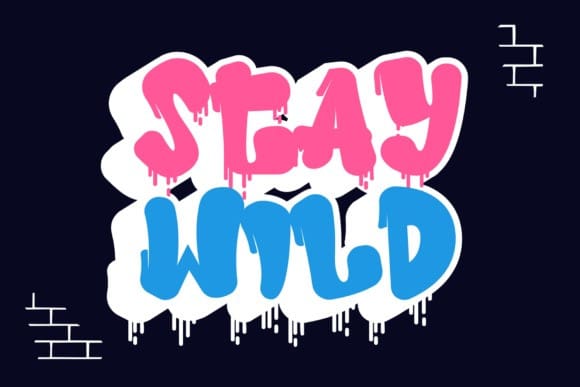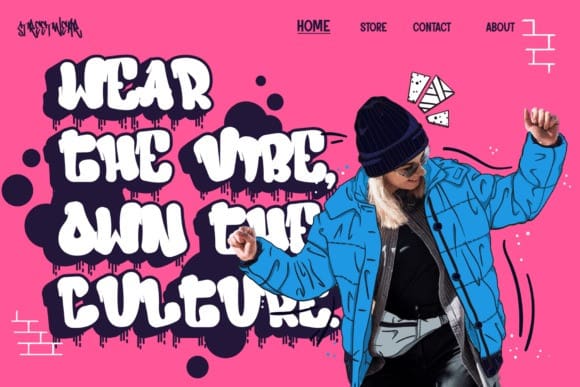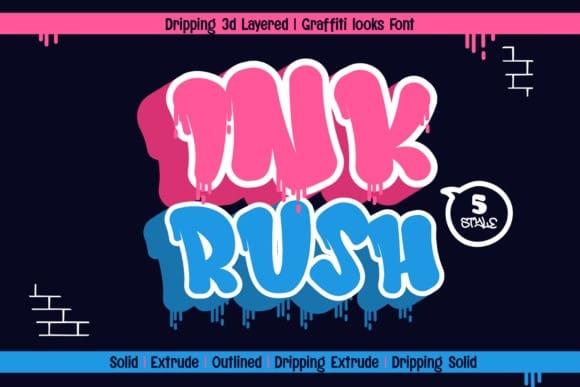
Ink Rush Font
Ink Rush Font is a bold and expressive dripping layered graffiti font crafted to bring an intense, street-inspired energy to any project. This font offers five distinct styles—solid, dripping solid, outlined, extruded, and dripping extruded—each providing unique looks for a variety of design needs. The solid styles offer clean, bold letterforms, while the dripping variations add an edgy, liquid effect that mimics fresh spray paint in motion.
The outlined and extruded styles introduce depth and a sense of layering, allowing you to build rich, impactful designs. With its combination of gritty urban appeal and versatile layering options, Ink Rush is perfect for posters, streetwear, album covers, graffiti-inspired branding, and any project looking to capture the raw, energetic spirit of street art. This font delivers an authentic, rebellious vibe that stands out and grabs attention.